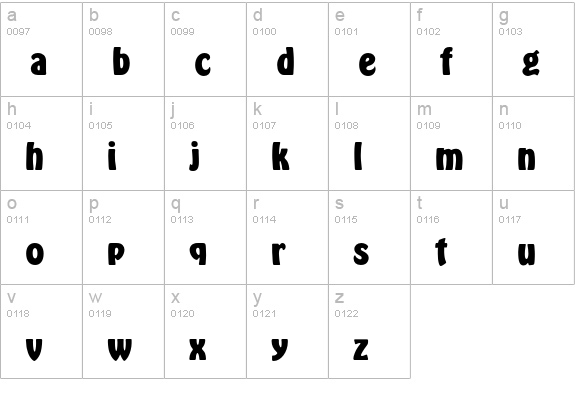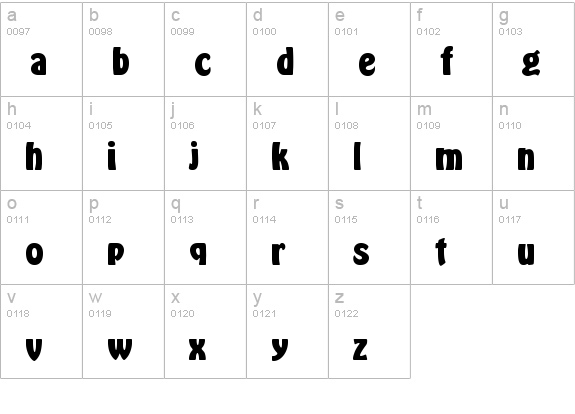
Hobo-Bold is a strong, high-contrast variant in the Hobo typeface family \xE2\x80\x94 well suited to headlines, attention-grabbing titles, and strong calls-to-action.
Hobo-Bold is a versatile and eye-catching font that exudes a sense of urban flair and modernity. With its bold and distinct letterforms, this typeface is perfect for making a statement in various design projects. Whether you are creating posters, logos, or branding materials, Hobo-Bold will add a touch of creativity and personality to your work. What makes Hobo-Bold even more appealing is that it is available for free download at FontsMarket.com. This means you can easily access this captivating font and use it in your projects without any hassle. Embrace the boldness and uniqueness of Hobo-Bold to elevate your designs and leave a lasting impression on your audience.